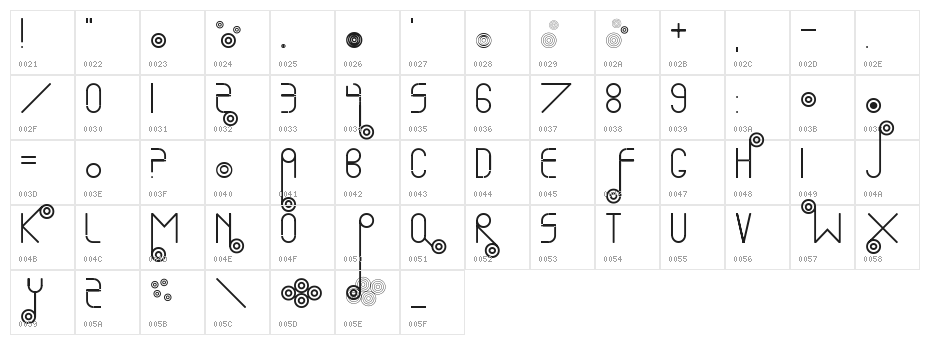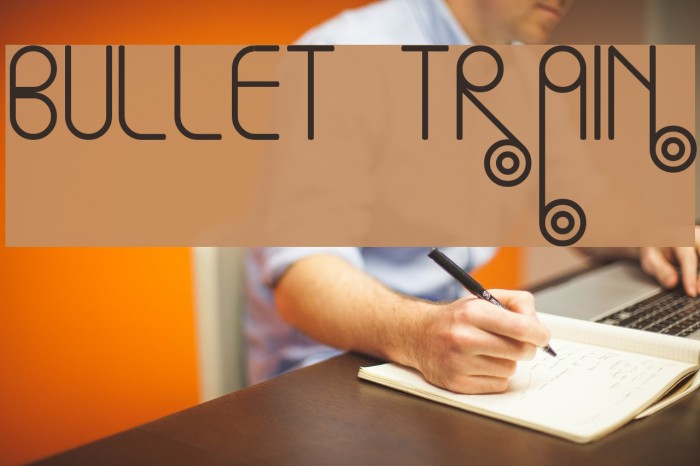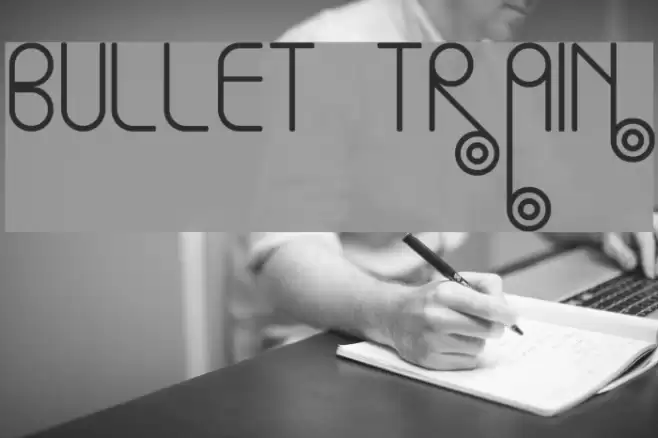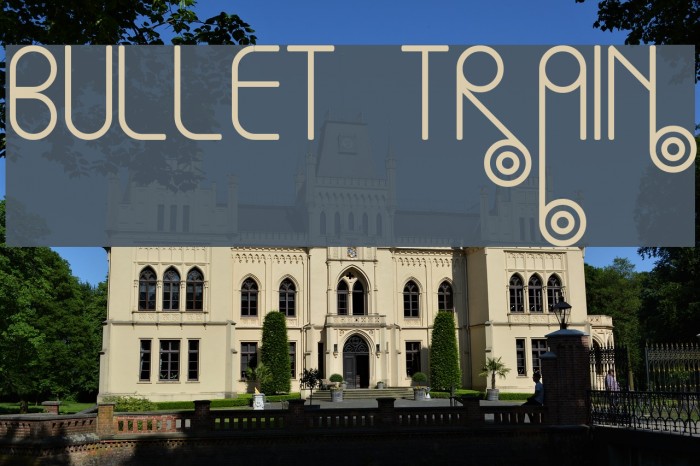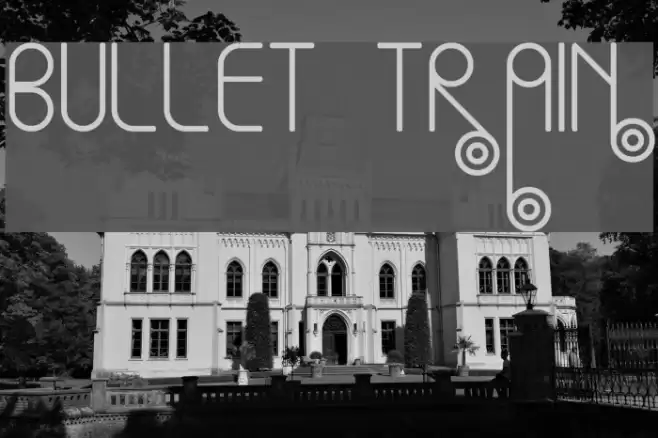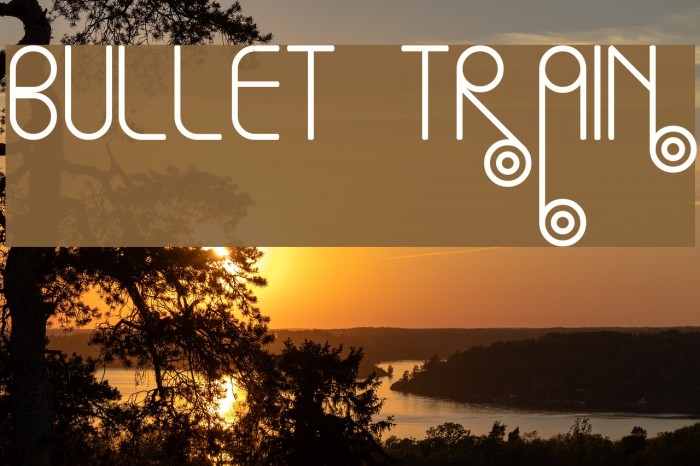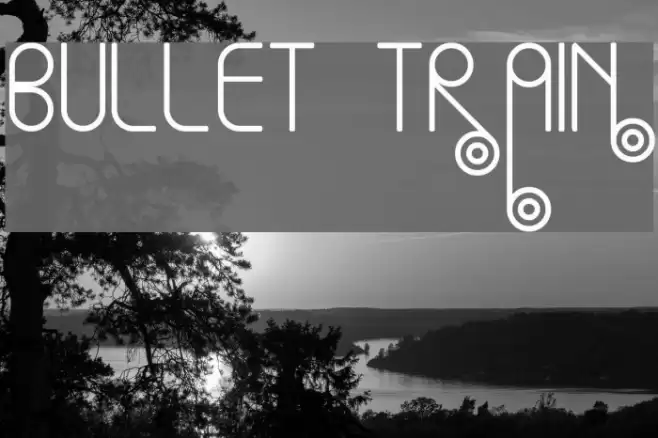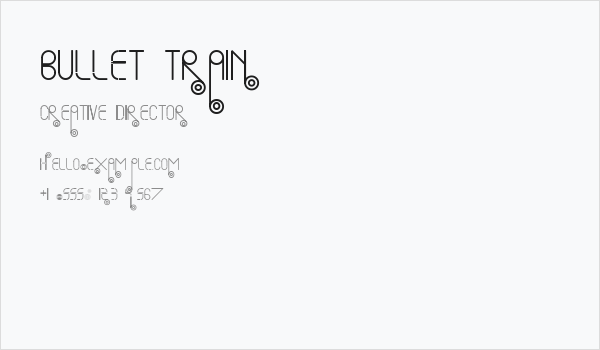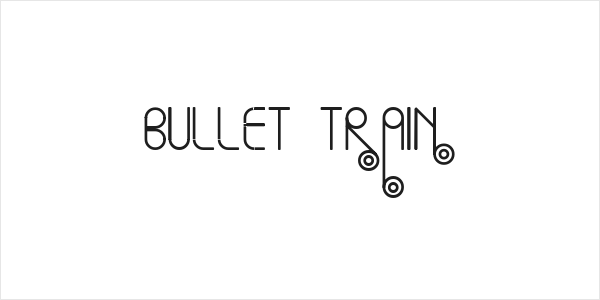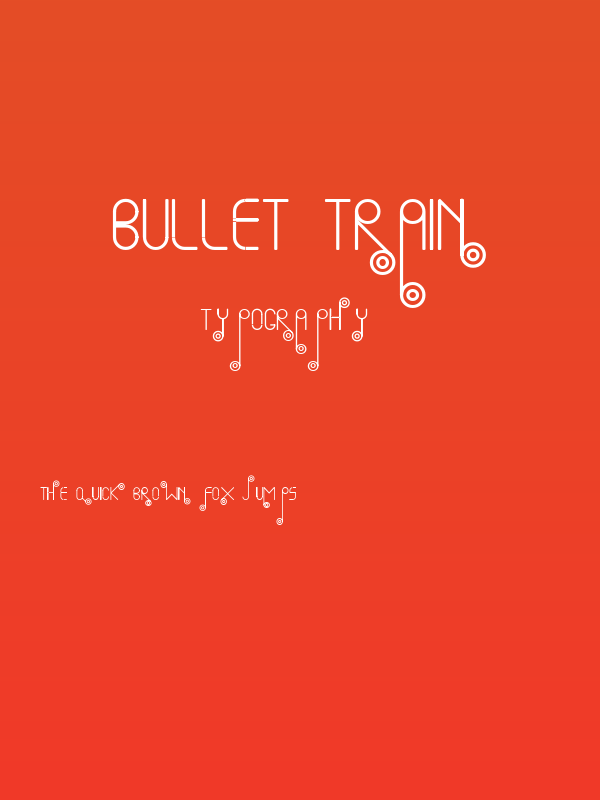
Bullet Train Font
Bullet Train Description
This font features a unique and futuristic design with a distinct geometric style. The characters are composed of thin lines with circular accents, giving it a modern and technological appearance. The uppercase and lowercase letters maintain a consistent height, while the numbers and special characters integrate seamlessly with the overall design. The circular elements add a playful yet sophisticated touch, making it suitable for creative and innovative projects. The font's structure is clean and precise, with a focus on minimalism and clarity.
| Proposed Projects | Ideal for technology branding, sci-fi posters, modern art projects, and innovative product packaging. |